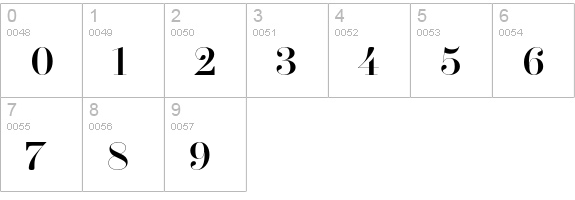
NewParis KingSize Medium is a balanced, medium-weight variant in the NewParis typeface family \xE2\x80\x94 well suited to sub-headlines, navigation, and balanced editorial work.
The NewParis KingSize Medium font is a sophisticated and elegant typeface that exudes a sense of timeless style and modernity. Its bold and clean design makes it ideal for a wide range of creative projects, from branding to editorial design. The balanced proportions and sleek lines of this font give it a professional and polished look, perfect for making a statement. What sets NewParis KingSize Medium font apart is not just its striking appearance, but also the fact that it is free to download. Yes, you read that right - this high-quality font is freely available for your use at FontsMarket.com. Whether you're a designer looking to add a touch of sophistication to your work or a business owner in need of a fresh look for your branding, NewParis KingSize Medium font is sure to impress. Download it today and elevate your projects with this premium typeface.